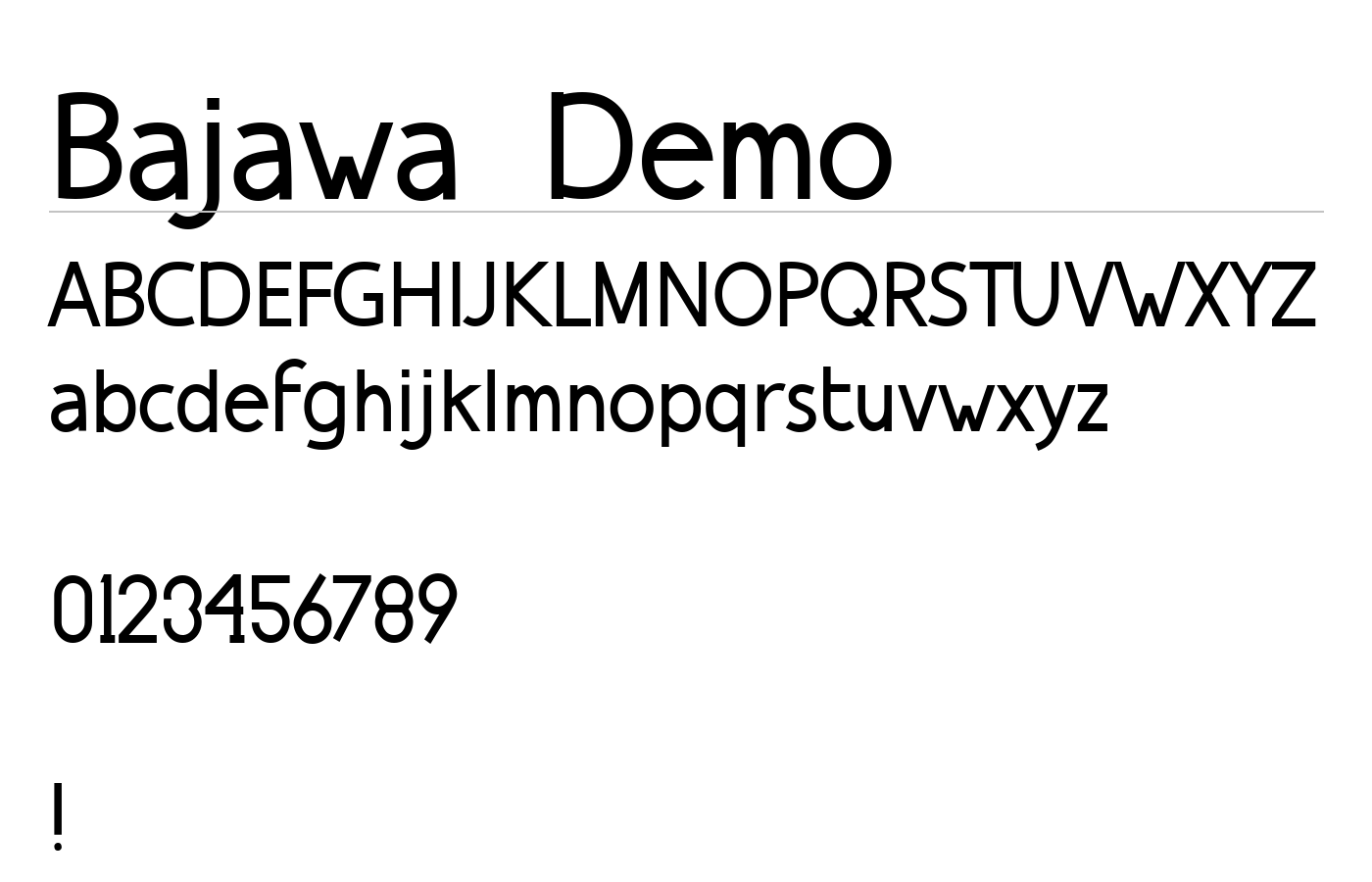
Bajawa Demo is a clean and modern sans serif font with a slightly condensed width and a high x-height that enhances readability. Its smooth, geometric shapes and consistent stroke weight give it a professional and approachable feel, making it ideal for contemporary branding, editorial layouts, and digital interfaces. This versatile font works well for headlines and body text, lending a crisp, clear voice to any design.
Bajawa Demo Font
About Bajawa Demo Font